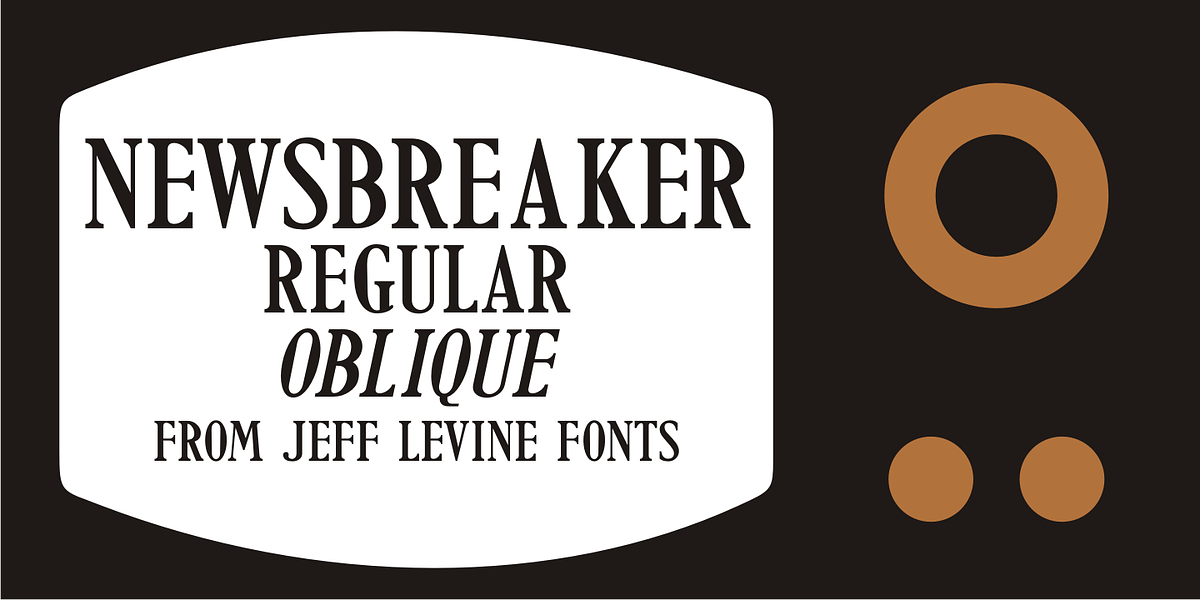
Newsbreaker JNL
Based on scans of some 1906 newspaper headlines detailing the devastation of the San Francisco earthquake, Newsbreaker JNL is a modern take on vintage typography.
With a few letterform characteristics somewhat reminiscent of DeVinne, this typeface was perfect in its day for expressing news headlines and it holds up just as well today for titling or banner ad copy.